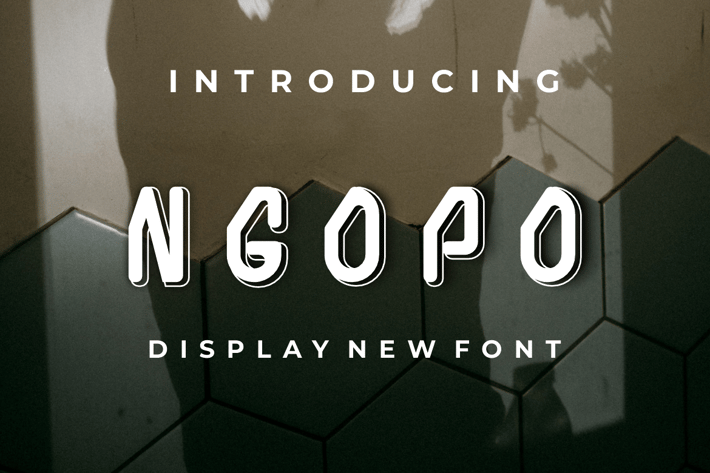
NGOPO FONT
Introducing our new product NGOPO FONT - Modern Font
NGOPO FONT - Modern Font is a bold and authentic display font. The font is suitable for any branding project like logo, t-shirt printing, esport, and many more. outstanding in a wide range of contexts.